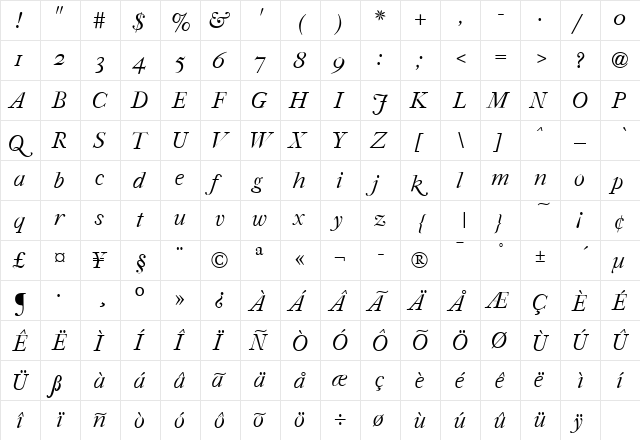
AIOberon Italic
Design Context for AIOberon Typeface
AIOberon takes a measured approach to typography — its balanced proportions and neutral character make it a reliable workhorse for both digital and print work. The dynamic lean of this cut emphasises speed and emphasis in any layout.
Pro Tip: Try AIOberon for annotation and caption copy alongside an upright companion — the contrast in angle creates a dynamic but ordered typographic system.